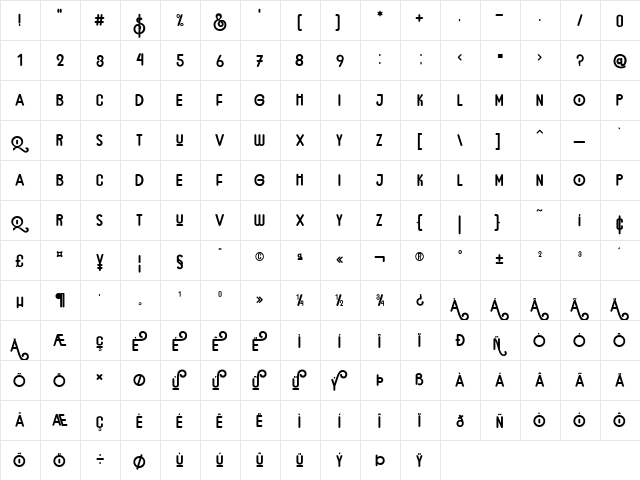
brustoni Regular
Design Context for brustoni Typeface
brustoni offers clean, dependable letterforms without strong stylistic allegiance, making it a practical choice for designers who need flexibility.